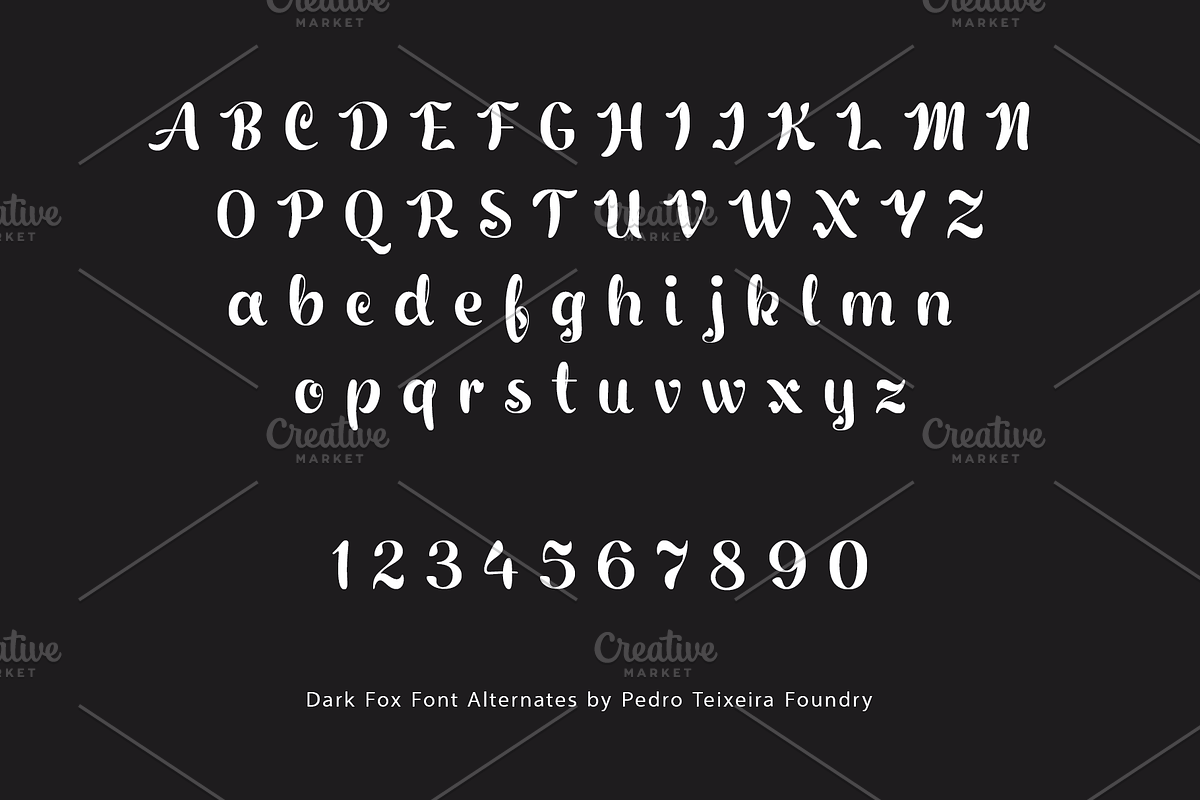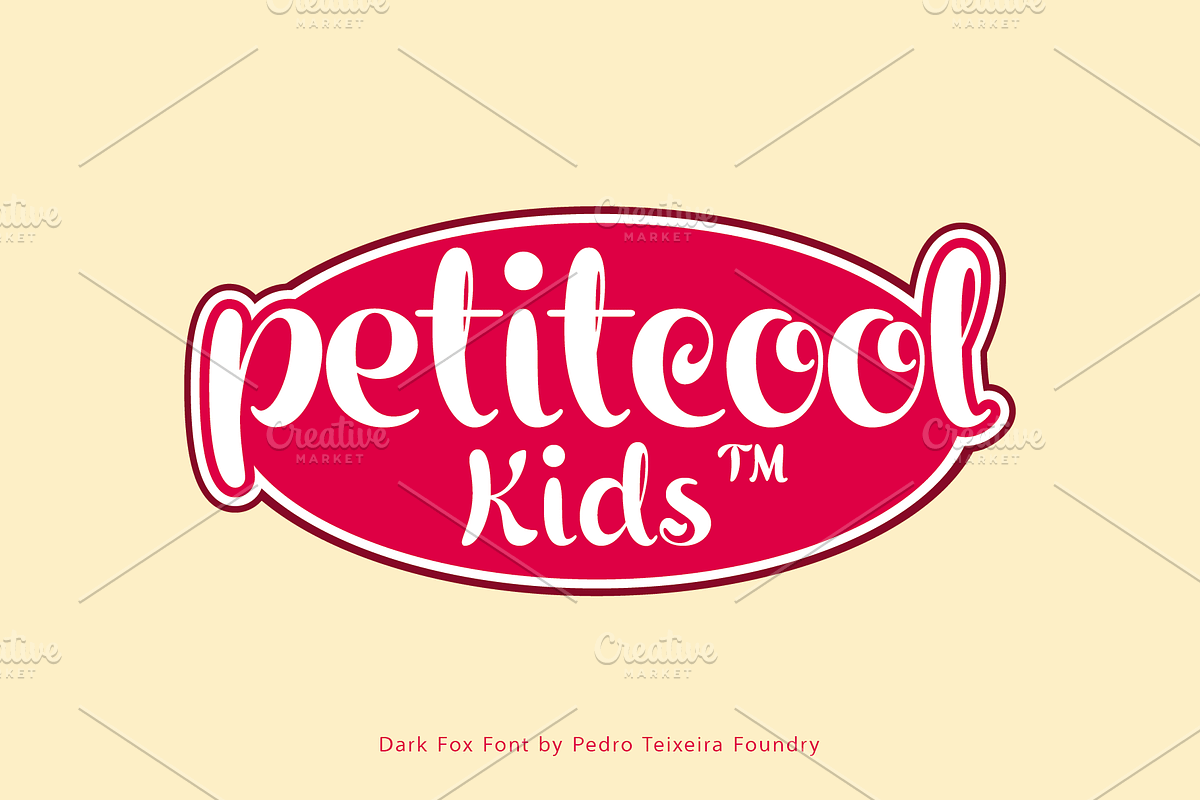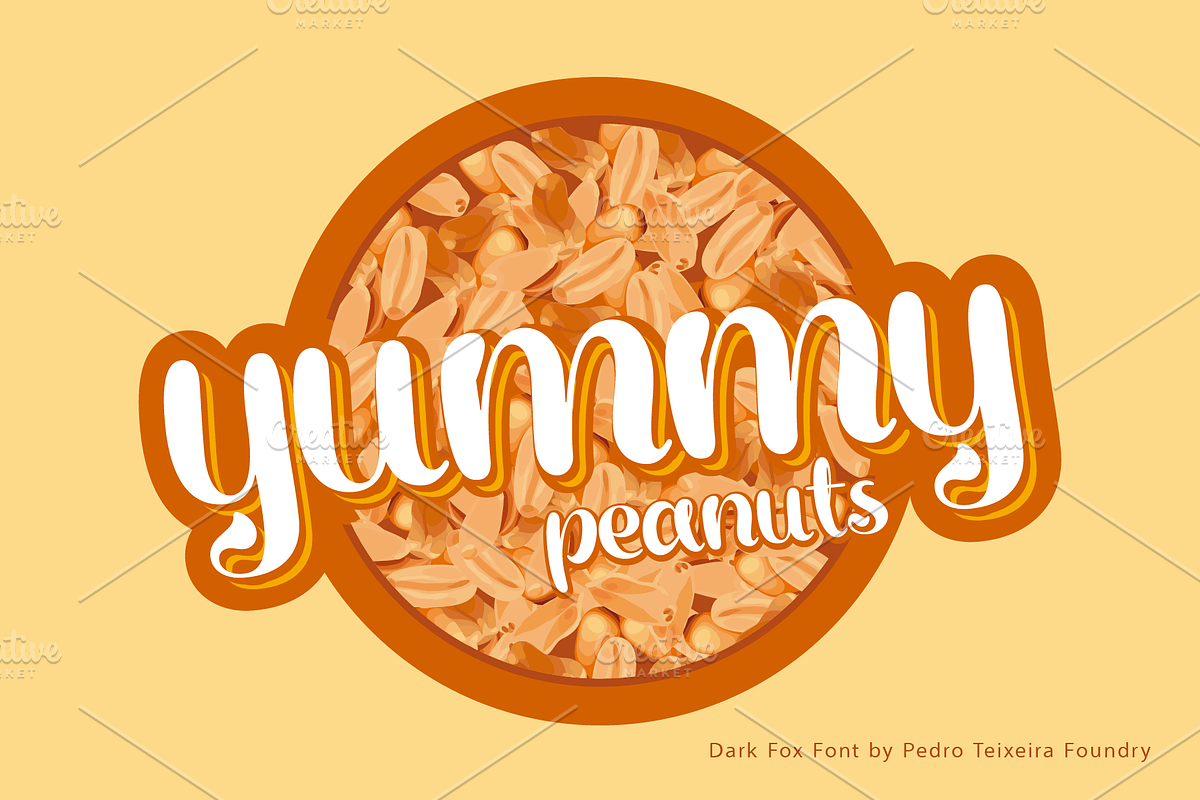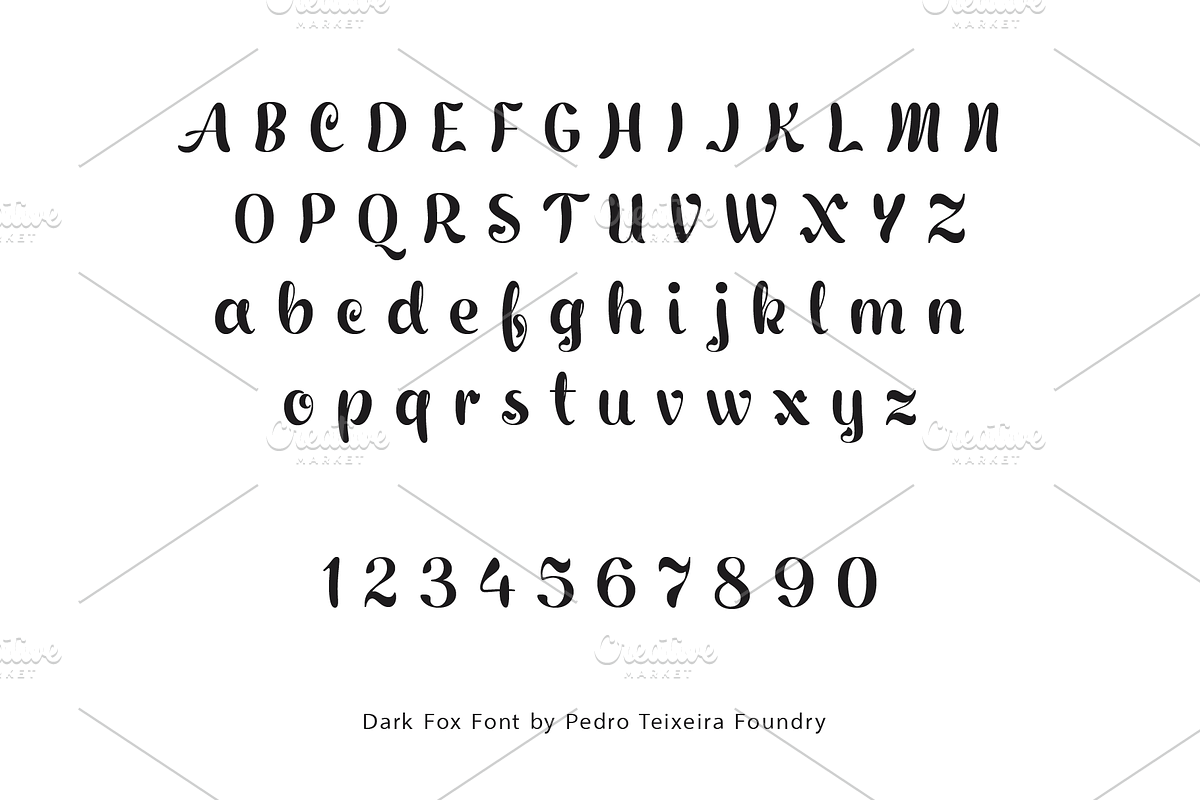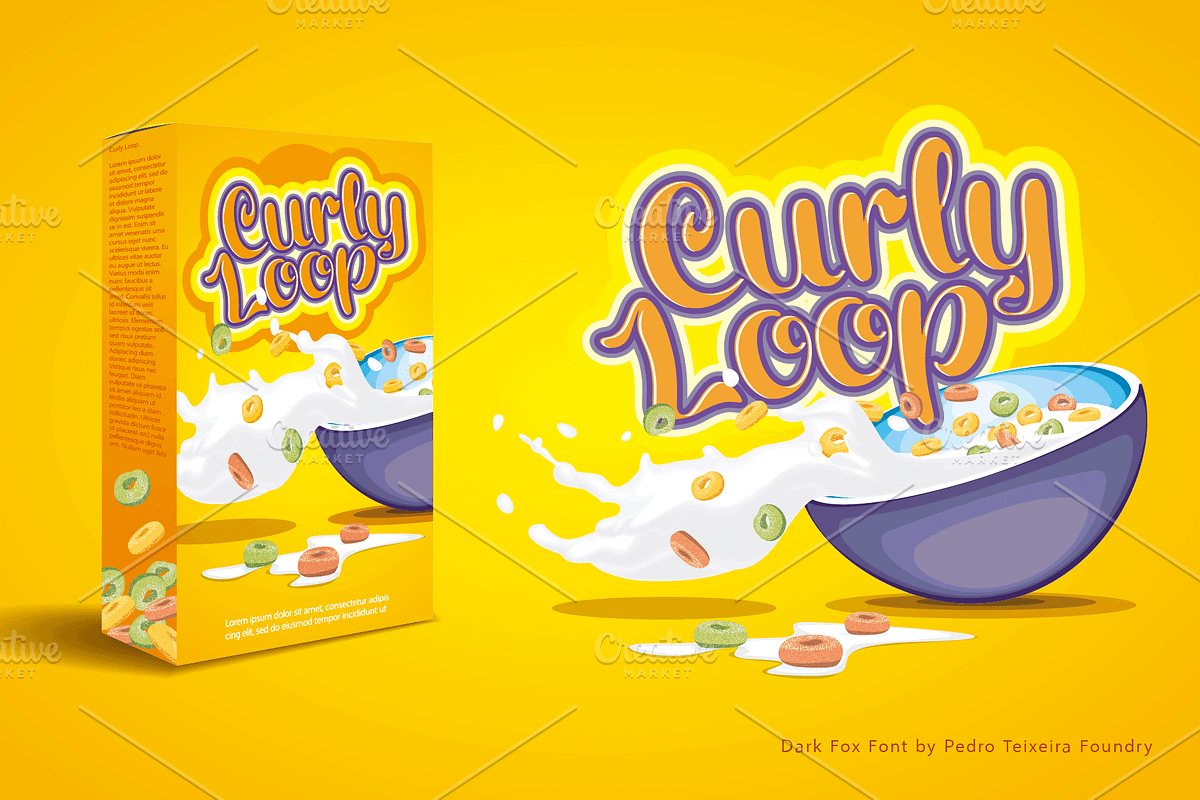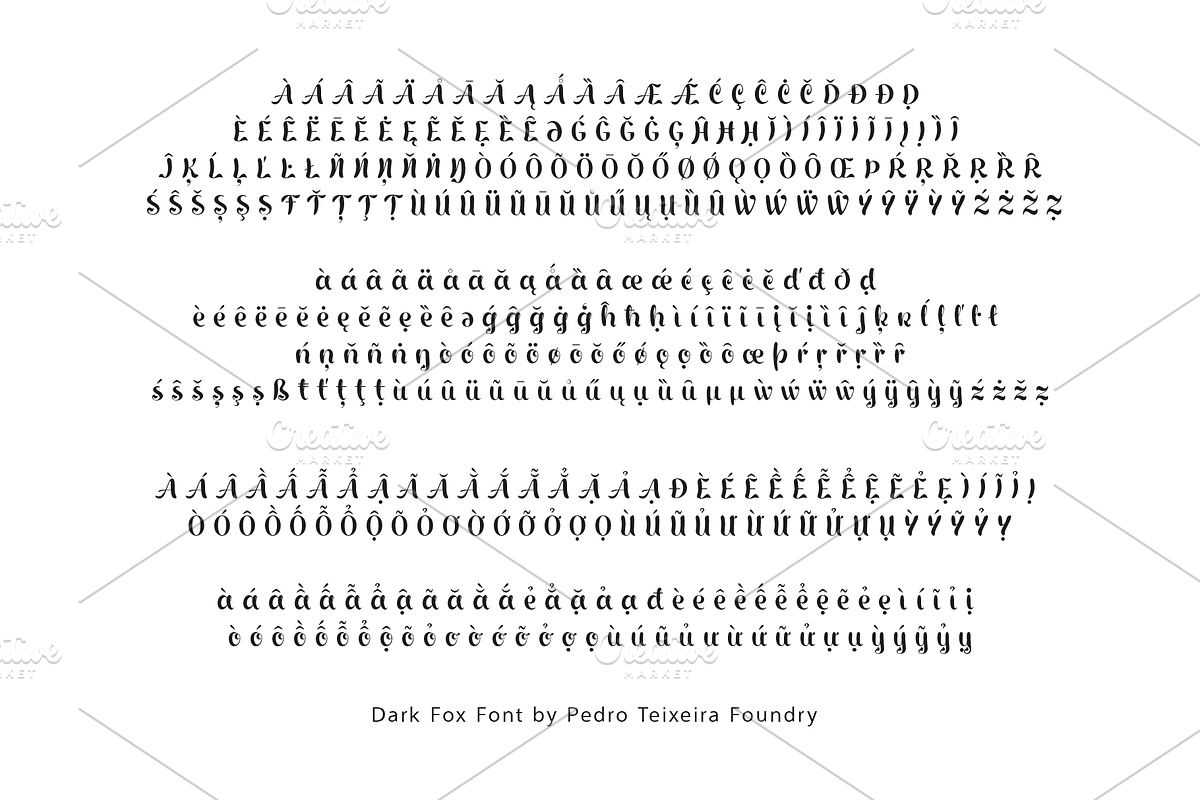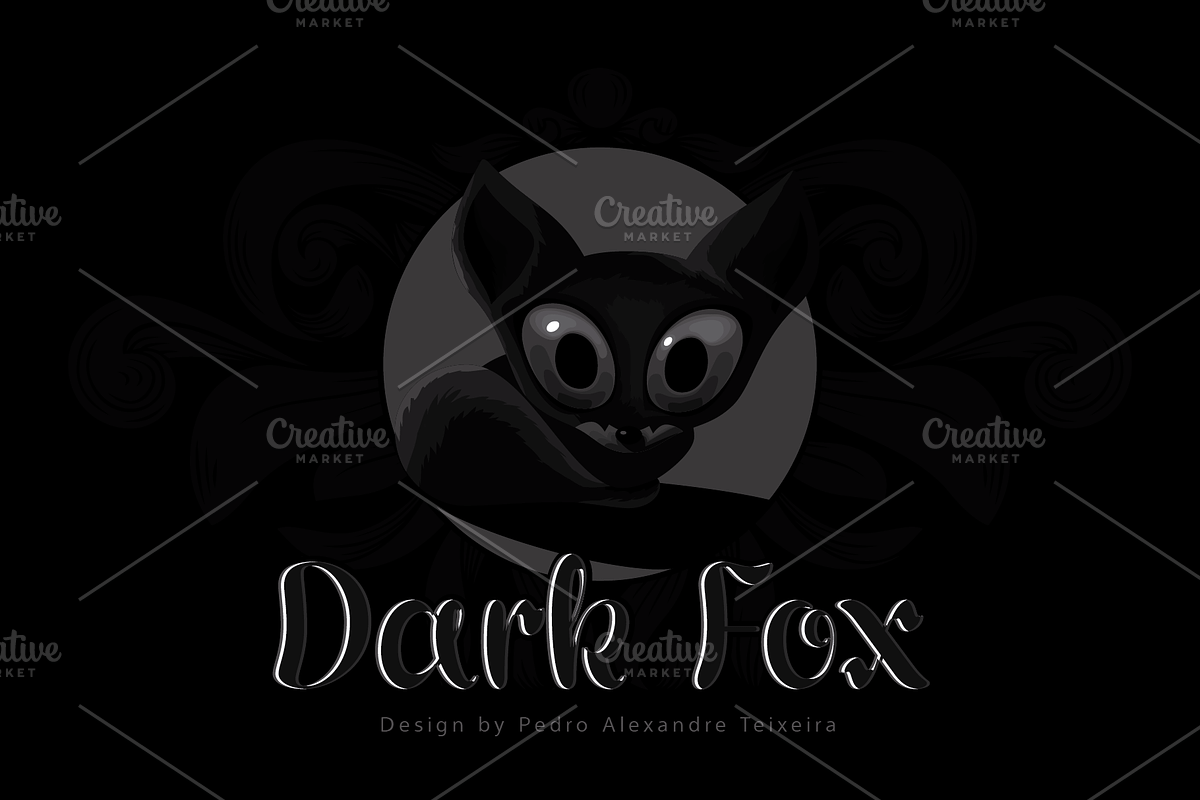
Dark Fox Font
Dark Fox is a cute, high-contrast versatile font, good for logos and all display needs.
128 Languages supported: Central Europe, Baltic, Turkish, Romanian and Vietnamese
Dark Fox Font by vectalex fits naturally into Branding, posters, packaging, typography.